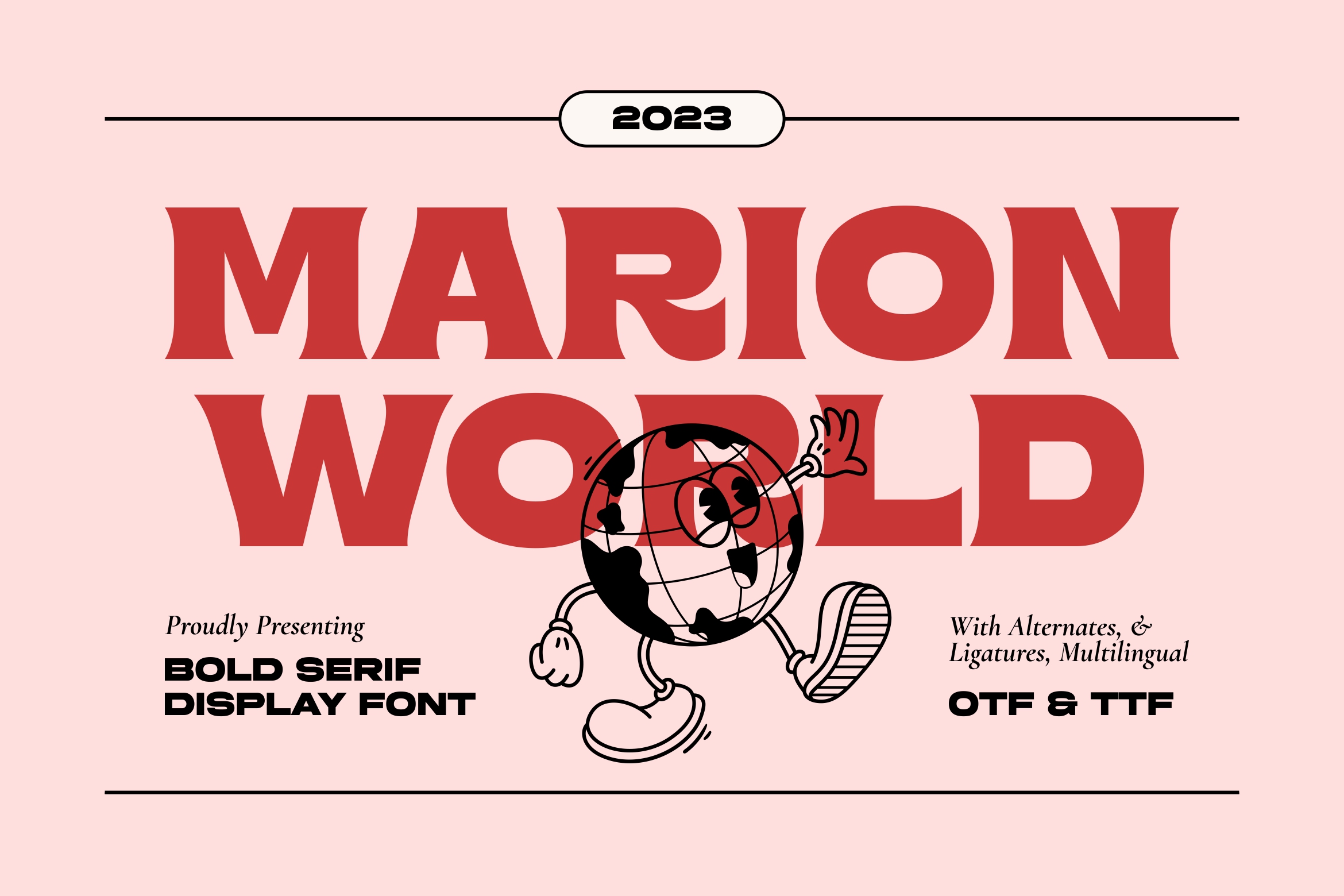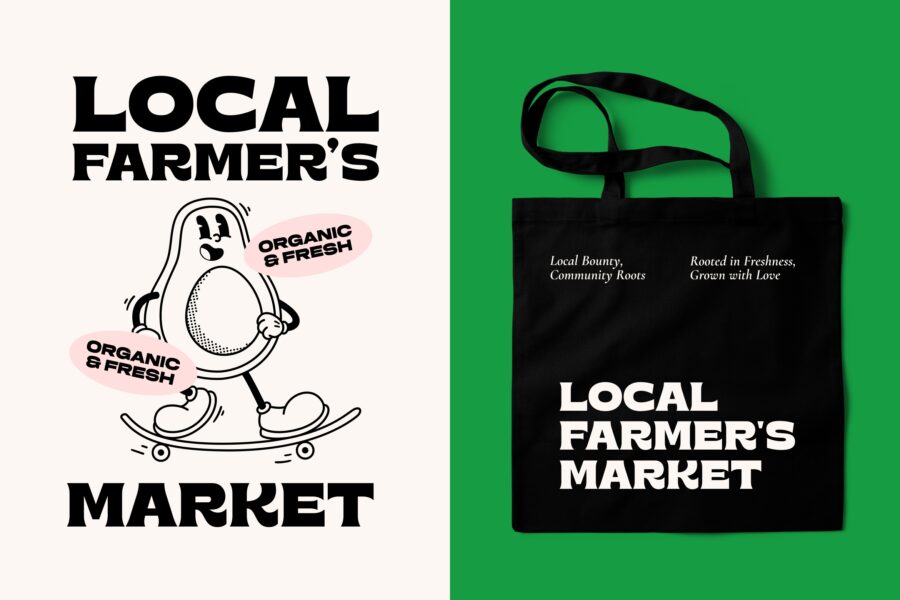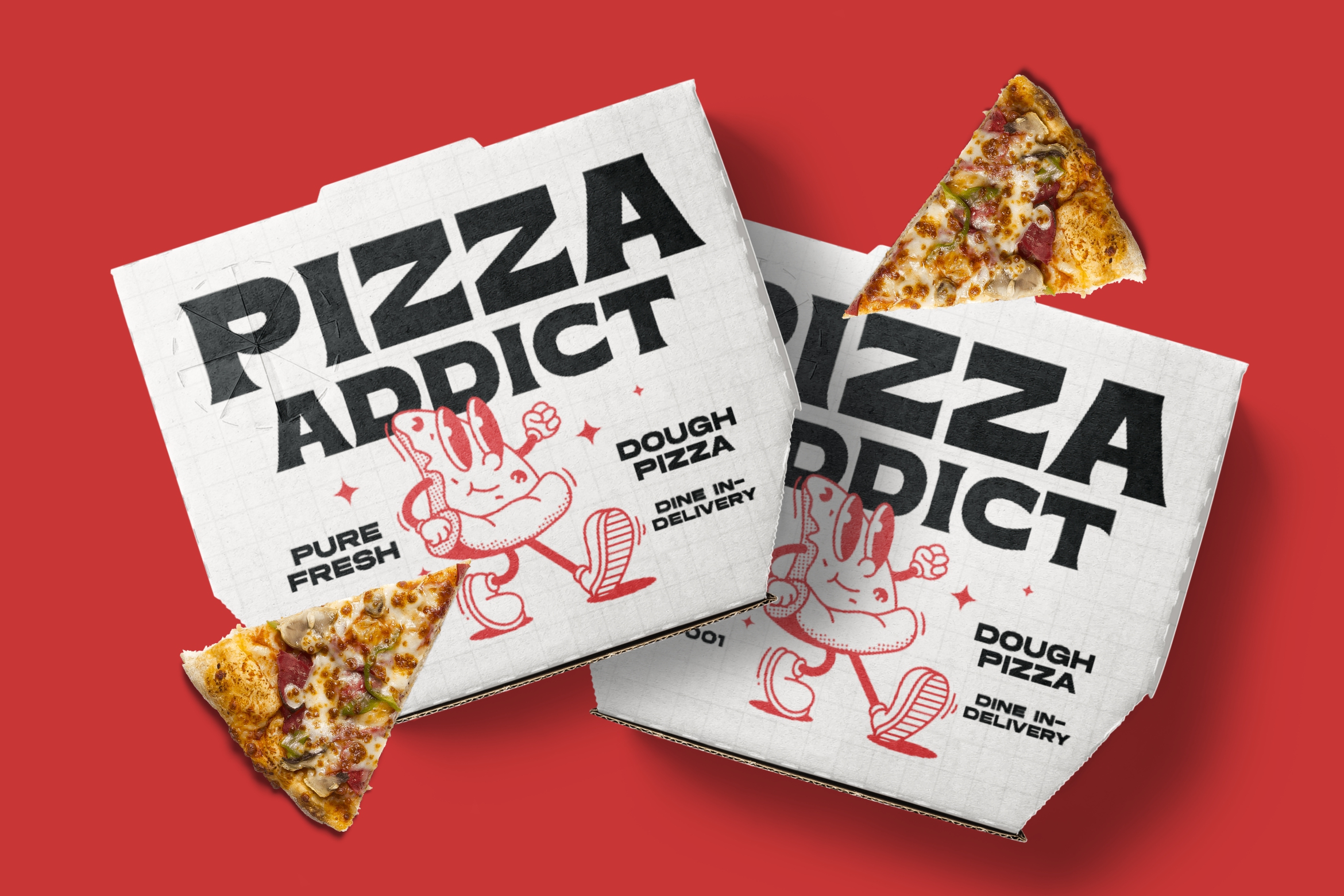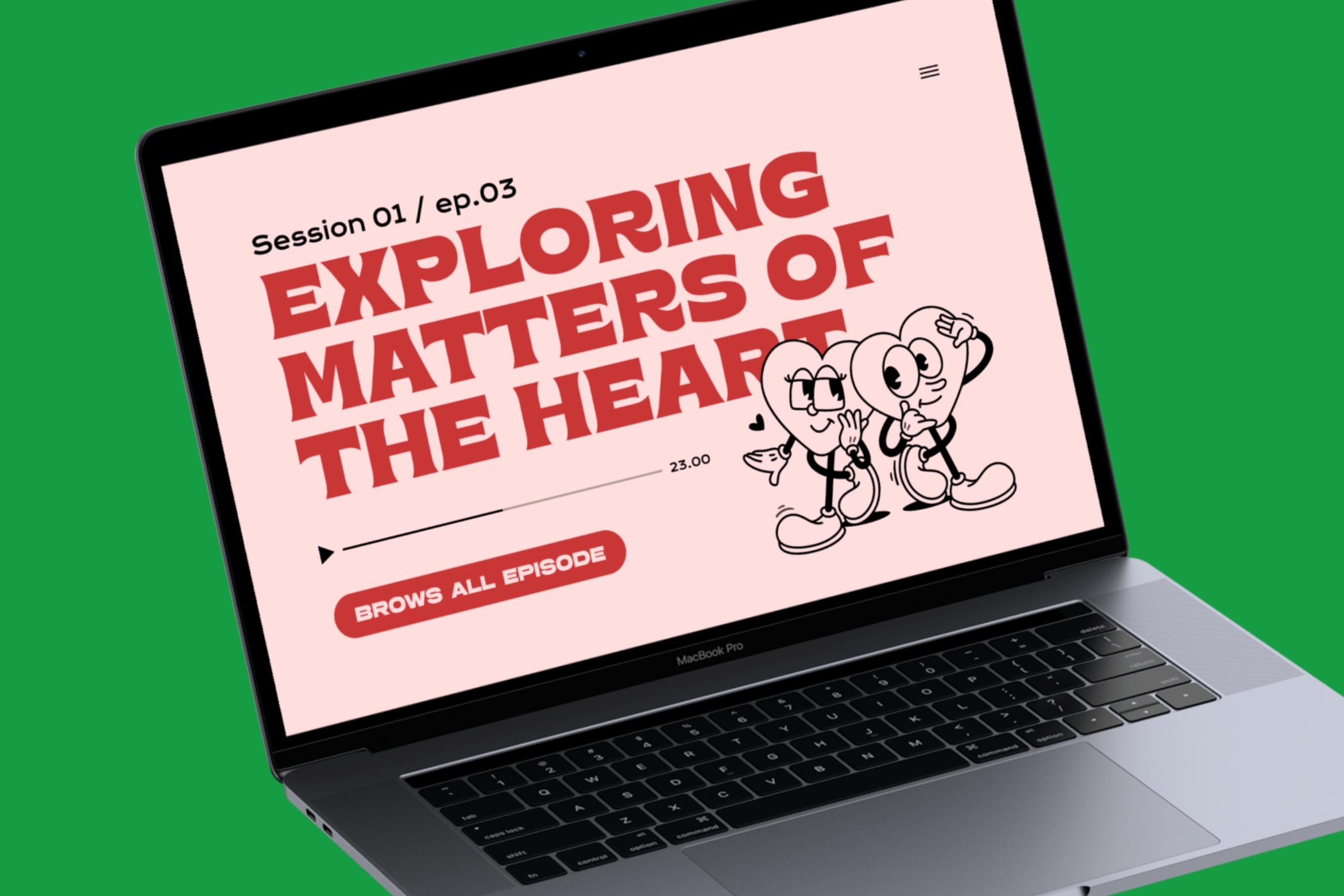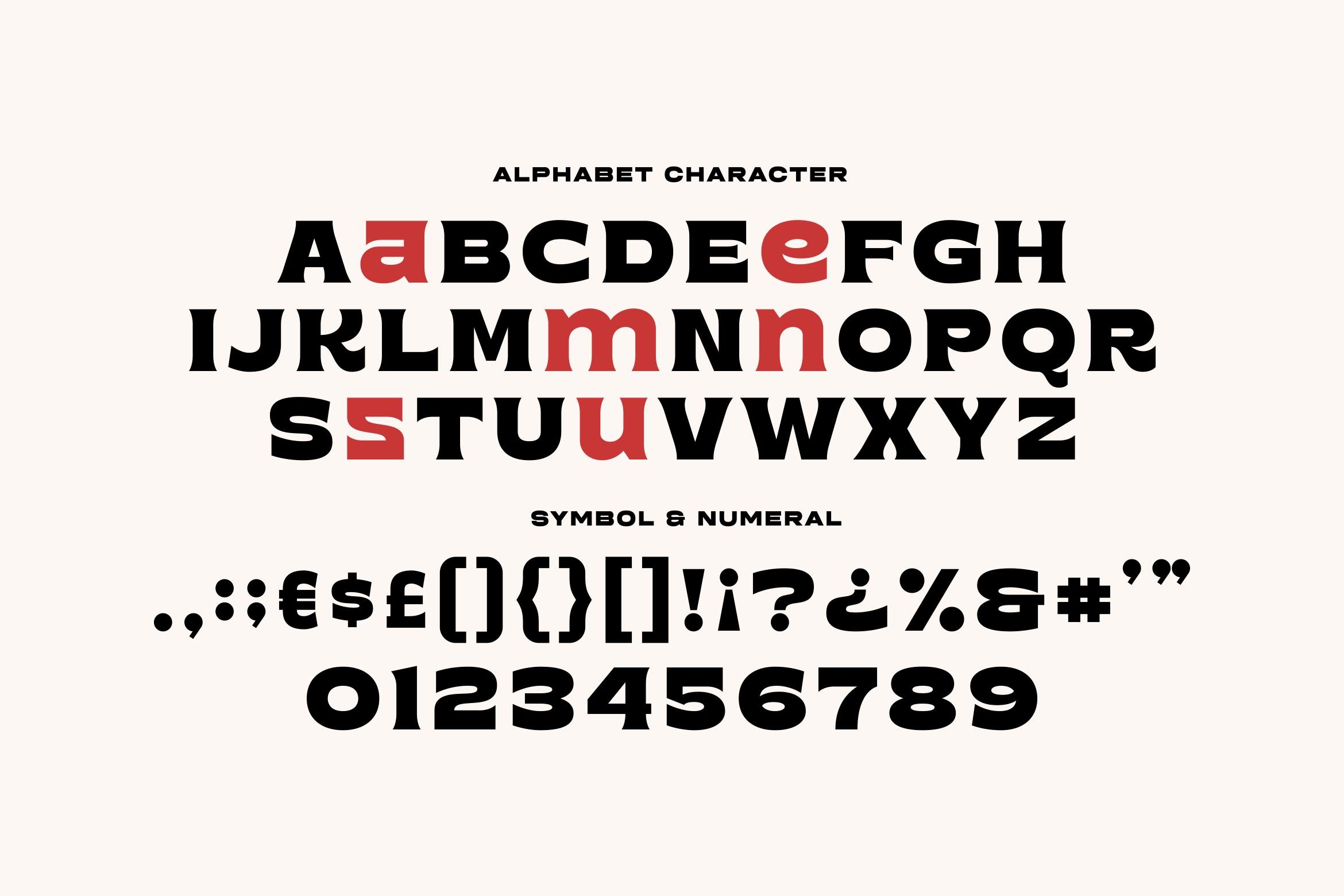
Marion World
Marion World is a bold serif display font that captures a retro yet playful charm, perfect for modern branding with a vintage twist. Its thick, high-contrast letterforms are balanced with unique curves and slab-style serifs, making it both impactful and quirky. With character alternates and ligatures, it allows for creative variation while maintaining strong legibility.
Ideal for headlines, packaging, posters, and characterful logos, Marion World works especially well in lifestyle branding, food-related designs, or nostalgic advertising. The font’s cartoon-style visuals and expressive forms bring an approachable, fun tone to any project while staying bold and attention-grabbing.